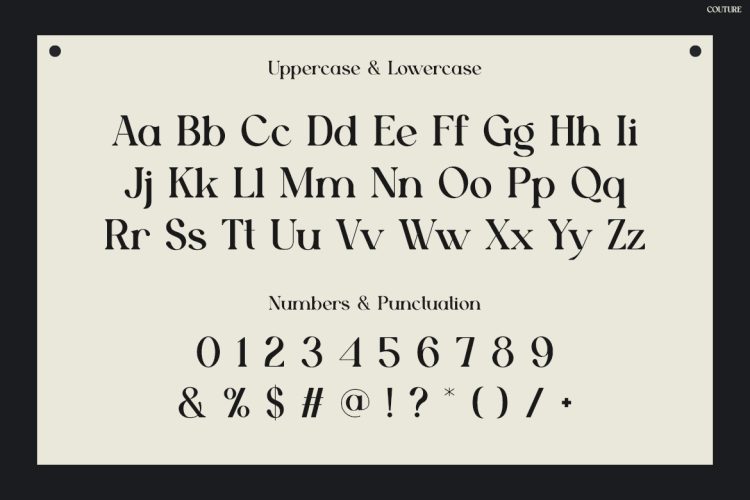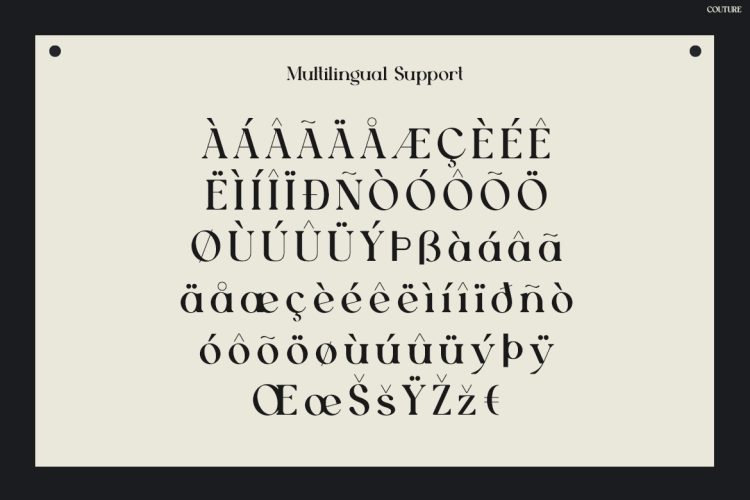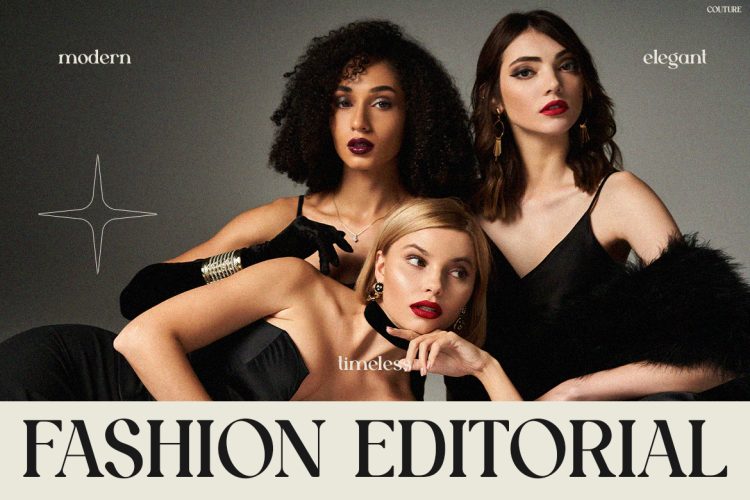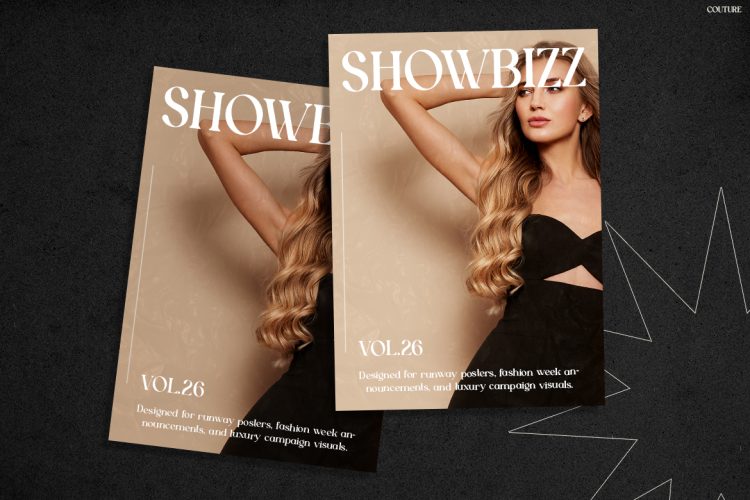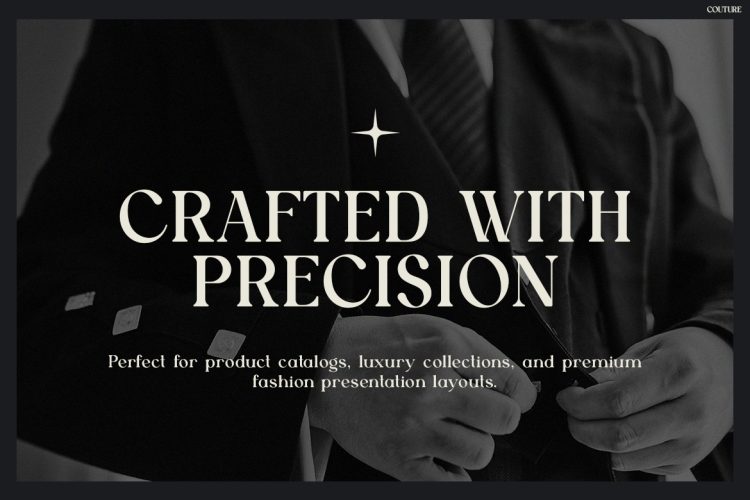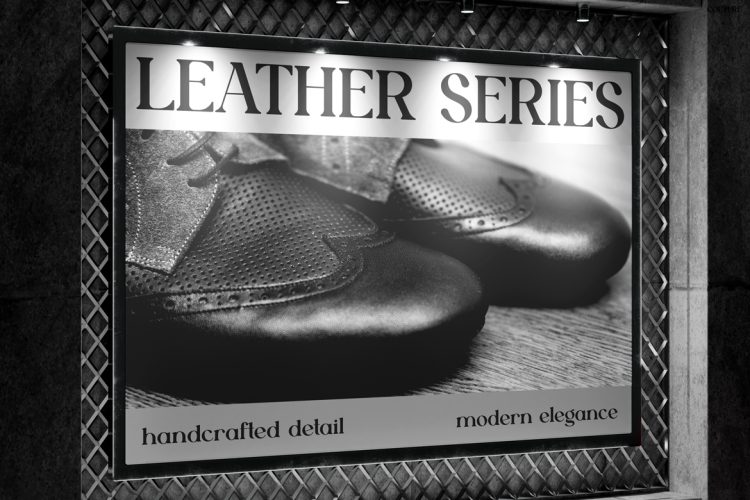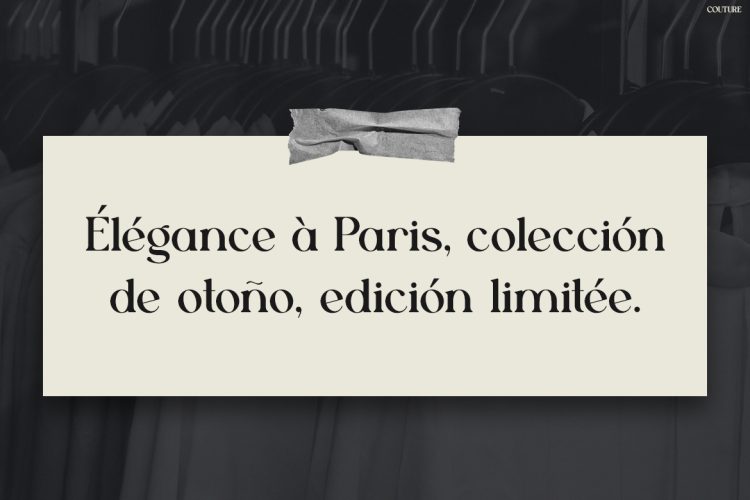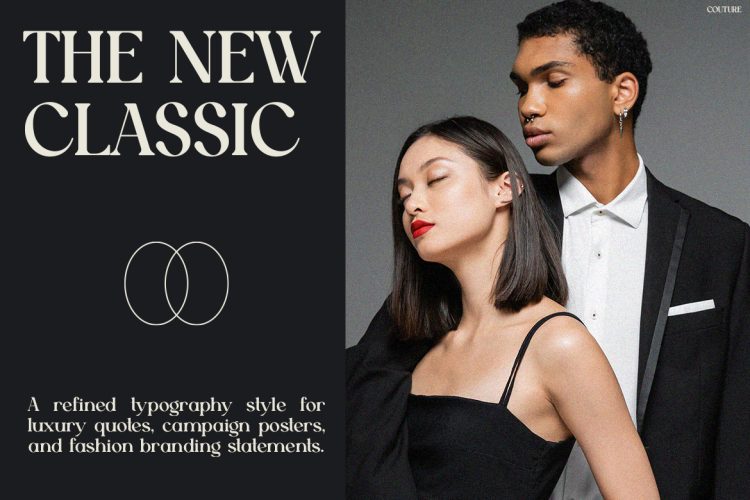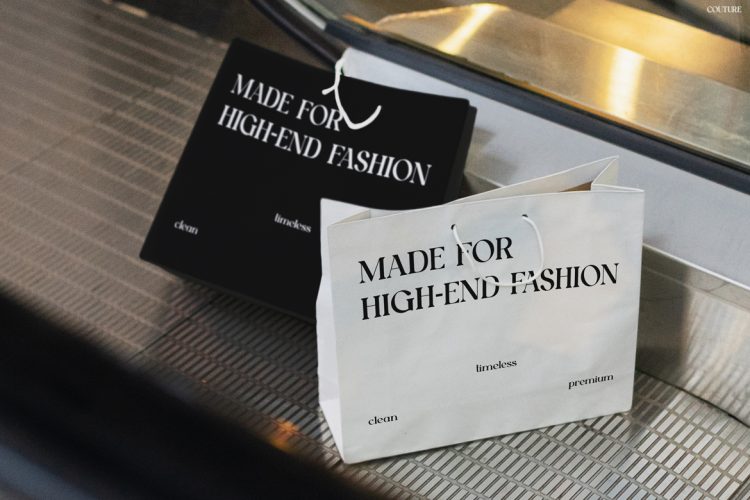
Couture โ Elegant Luxury Serif for High-End Visual Identity
Instagram Font Couture defines sophistication with its refined serif structure, while also delivering a striking balance between modern minimalism and timeless luxury. Moreover, its high-contrast strokes and sharp details immediately create a premium visual impact. As a result, every letter feels intentional, polished, and fashion-forward. In addition, the graceful curves and clean spacing enhance readability, even in complex layouts. Not only does this font elevate headlines, but it also performs beautifully in editorial compositions. Therefore, it becomes a powerful tool for designers who want to communicate elegance with clarity. With support for 67 languages, it also ensures global usability without sacrificing style.
Instagram Font Couture is a high-end serif typeface crafted for luxury branding and editorial storytelling. Furthermore, it captures the essence of fashion magazines, premium campaigns, and minimalist design trends. Because of its versatility, it works seamlessly across both print and digital platforms. For example, it can be used in branding systems, social media layouts, and packaging designs. In the same way, its clean structure allows it to remain readable while still looking sophisticated. Additionally, the multilingual support expands its reach, making it ideal for international projects. As such, designers can maintain consistency across different markets with ease.
This font is ideal for fashion designers, luxury brands, and creative agencies. In particular, it works exceptionally well for Instagram content, editorial magazines, and lookbooks. Likewise, beauty brands and high-end product packaging benefit from its refined aesthetic. Moreover, photographers, stylists, and boutique owners can use it to strengthen their visual identity. If your audience values elegance and exclusivity, then this font will align perfectly with your branding goals. Consequently, it helps create a strong and memorable impression.
Ultimately, Instagram Font Couture is more than just a typefaceโitโs a statement of class and precision. So, if you want to elevate your designs and stand out in a competitive market, this font is the right choice. Donโt miss the opportunity to transform your visuals into premium experiences that truly captivate.